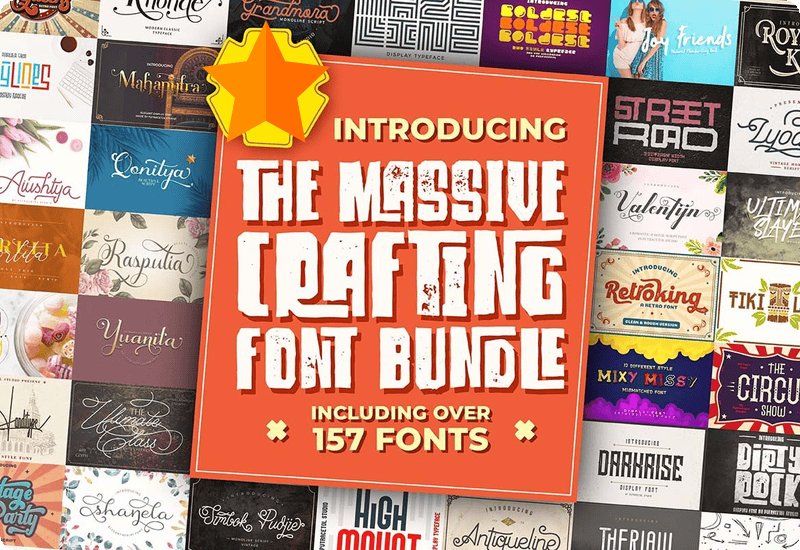
Elevate Every Project with 157 Premium Fonts for FREE
The Massive Crafting Font Bundle by Putracetol is a rare giveaway featuring 157 premium fonts from 107 expertly designed font families—available now at zero cost (a $1,200 value). Whether you’re designing custom shirts, logos, invitations, social media graphics, or signage, this versatile bundle equips you with everything you need to produce beautiful, professional results.
Why Choose the Massive Crafting Font Bundle?
Each font in this collection is packed with character, style, and purpose. You’ll find a wide mix of modern calligraphy, playful scripts, elegant serif fonts, retro displays, and bold typefaces. Perfect for:
What’s Included in the Bundle?
This bundle includes fonts that suit every theme and tone. Here’s a preview of the diverse range you’ll receive:
- Elegant Scripts & Handwritten Fonts:
- Vintage Queens
- Mayla
- Tashia
- Keshia
- Sweethearts
- Marceila
- Glamoury
- Bold & Unique Display Fonts:
- Strip Deco
- Ultimate Slayer
- Smash Wall
- Crava
- Barstrip
- Eurolite
- Duo and Trio Font Sets:
- Hello Eisya Duo
- Florita Duo
- Beauty and Love Duo
- Corlita Trio
- Decorative & Retro Fonts:
- Circus Show
- Spirly
- Darkrise
- Retroking
- Tikiland
- Blackletter & Serif Fonts:
- Arshaka
- Rougher
- Audrey
- Revalate
From fun and whimsical to sharp and formal, every design need is covered.